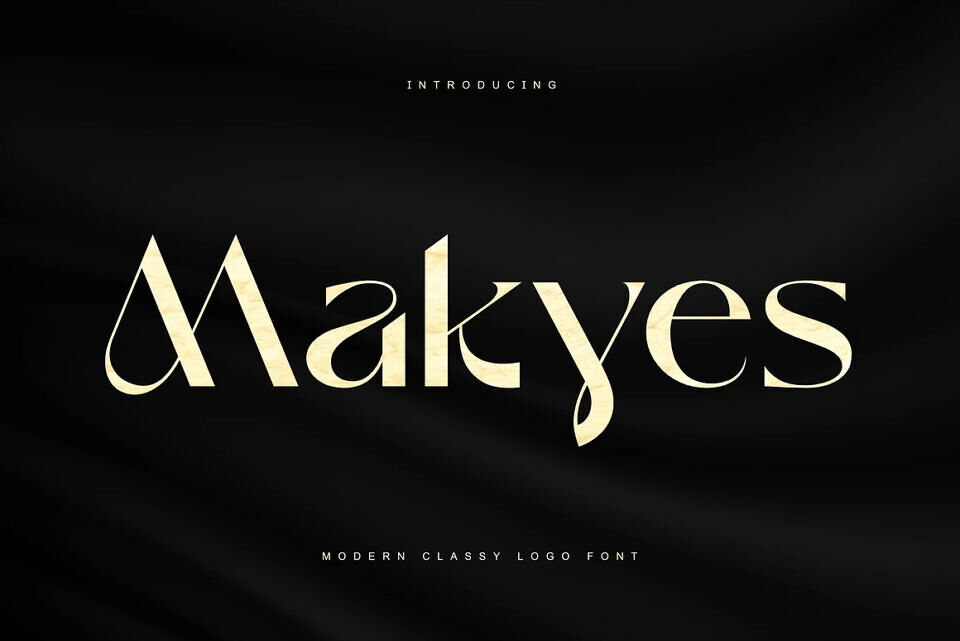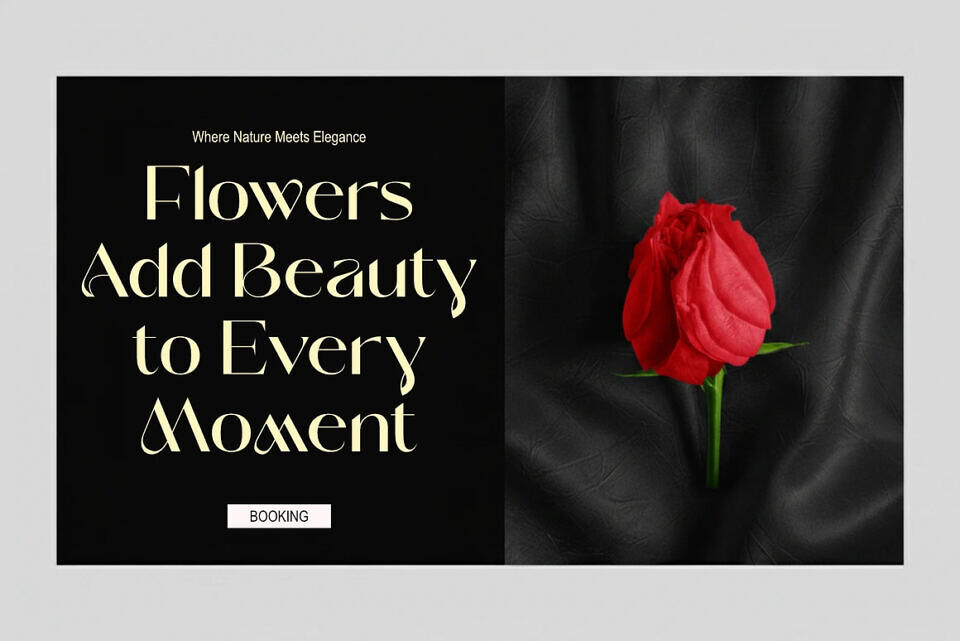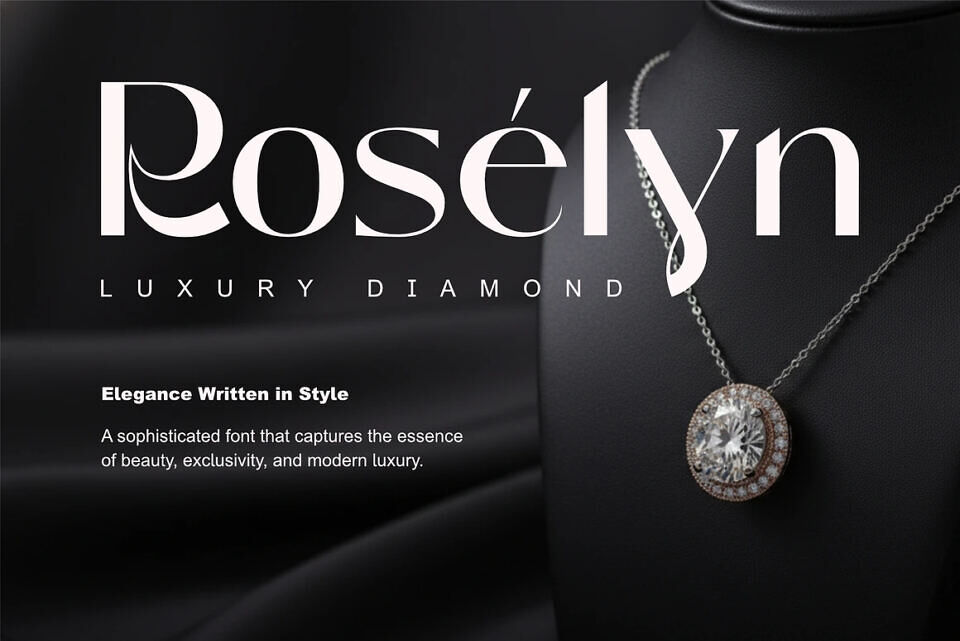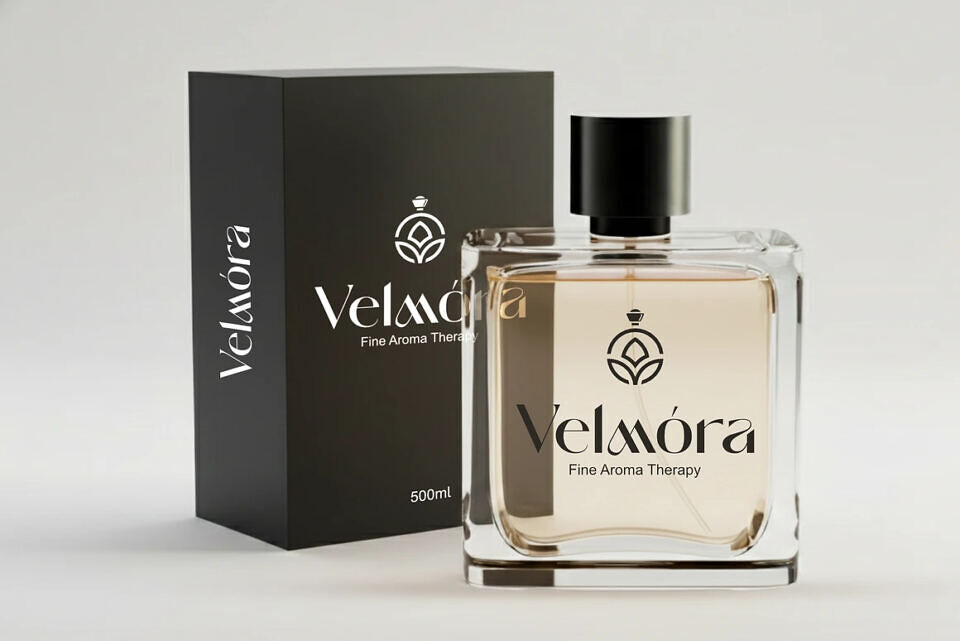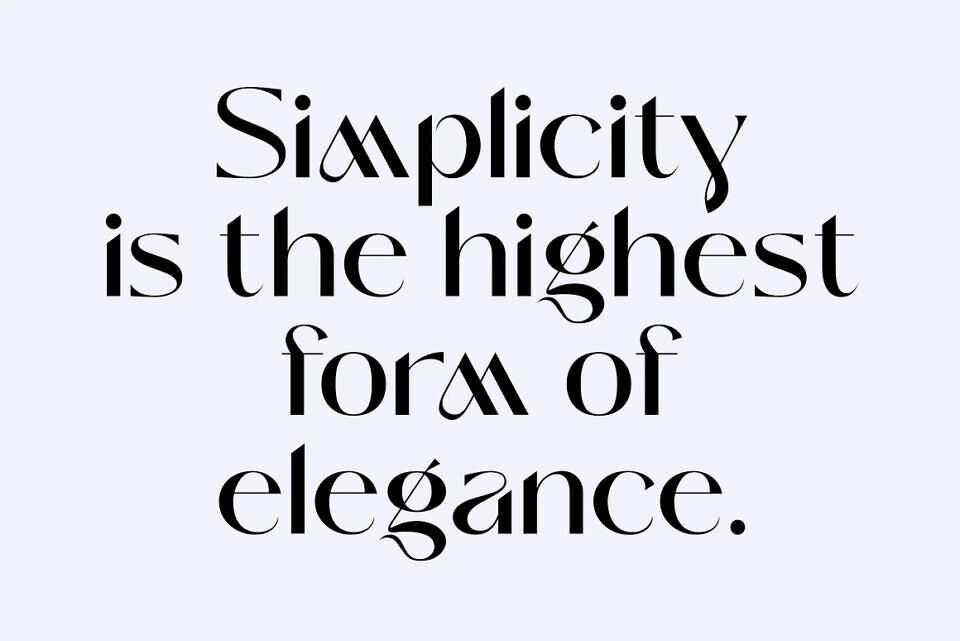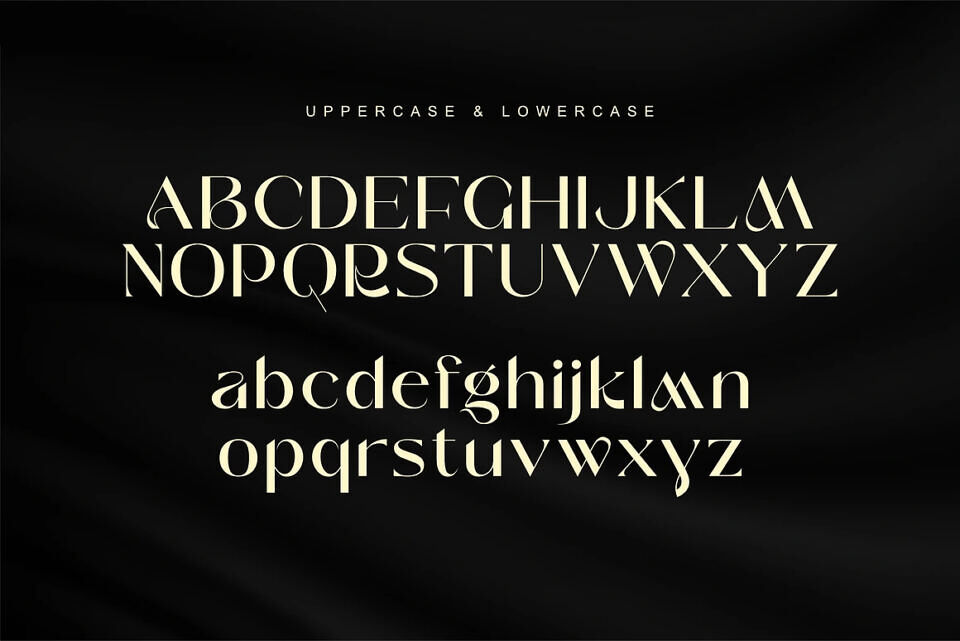
Makyes Font
Makyes is a sophisticated font that combines modern minimalism with luxury. Its clean lines and refined details make it ideal for high-end branding and stylish designs. Inspired by premium fashion and upscale corporate identities, Makyes exudes clarity, balance, and class.
With its intentional curves and strokes, it adds a touch of elegance to logos, branding, and headlines, conveying prestige without excess. This font is perfect for designers seeking to create exclusive and polished visual identities.